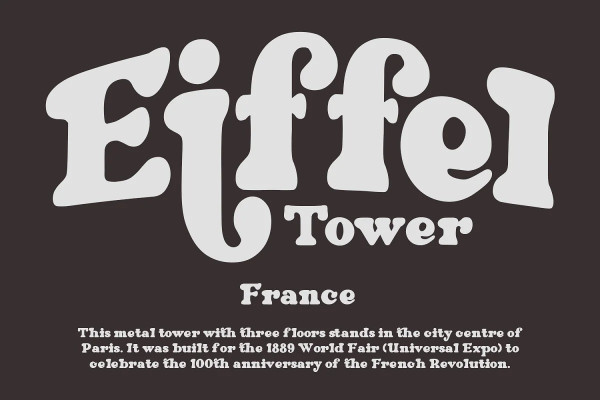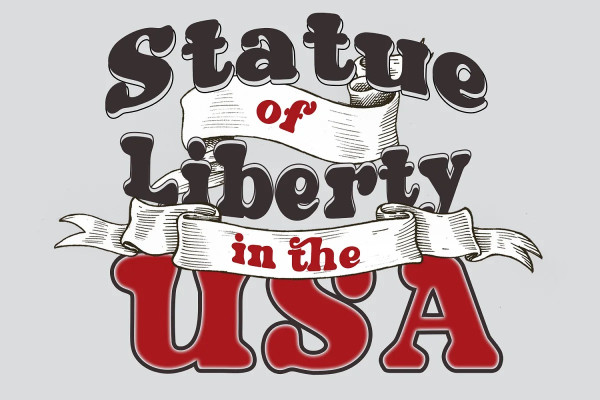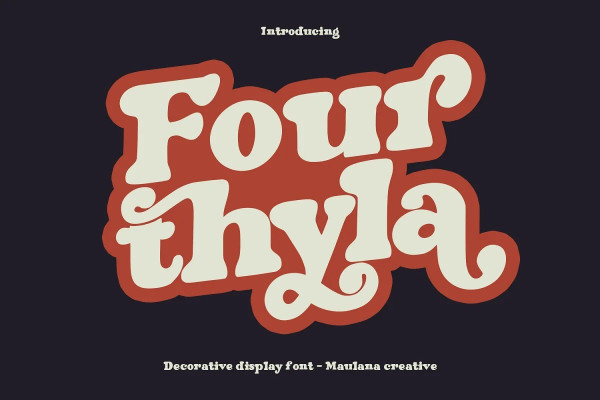
Fourthyla Font
Fourthyla Font is a handwritten Serif display font. With bold stroke, fun character with a bit of ligatures and alternates. To give you an extra creative work. Fourthyla font support multilingual more than 100+ language. This font is good for logo design, Social media, Movie Titles, Books Titles, a short text even a long text letter and good for your secondary text font with script. Make a stunning work with Fourthylafont.